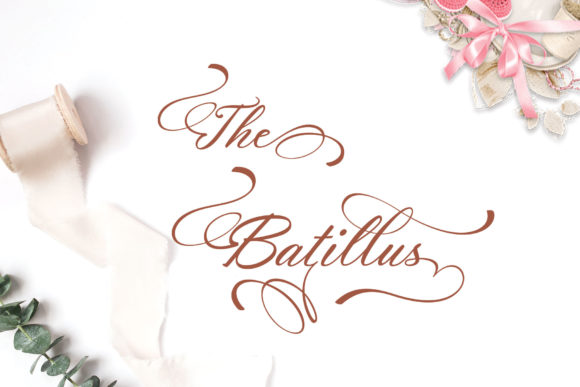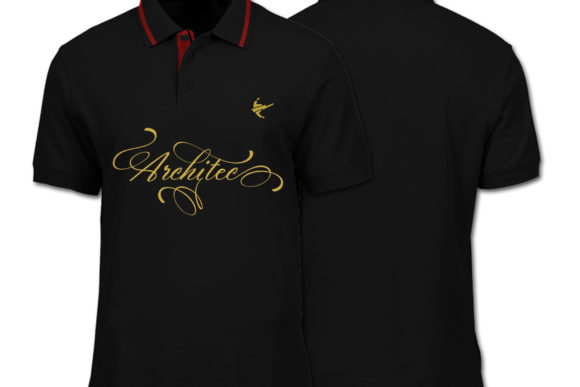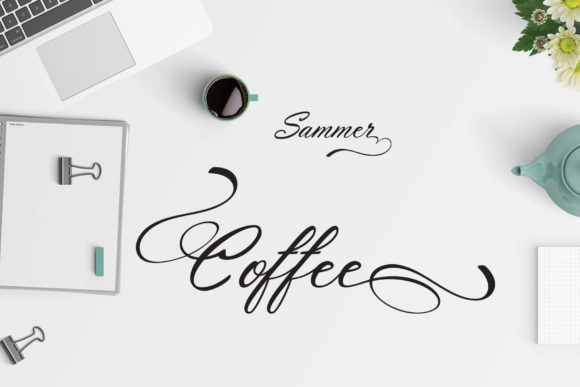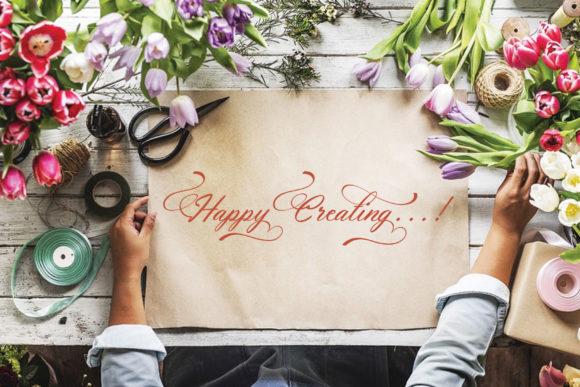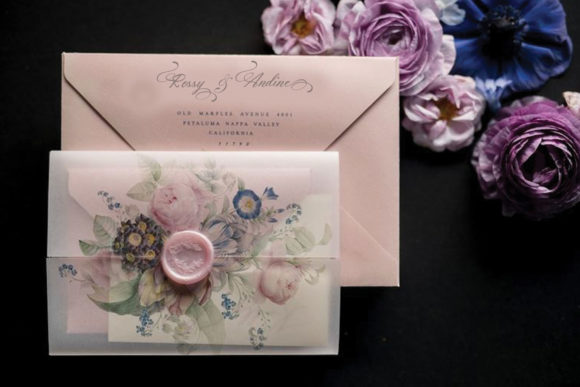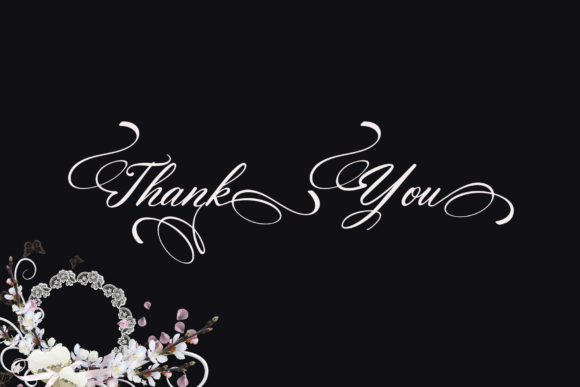
Arthevas Font
About Arthevas Font
The Arthevas is a modern calligraphy font. It has an amazing handwritten look and includes magnificent swashes. It has gorgeous grounds and is furnished with fine lines.
It’s perfect for titles, signatures, logos, correspondence, wedding invitations, letterheads, signage, labels, newsletters, posters, badges, and much more!